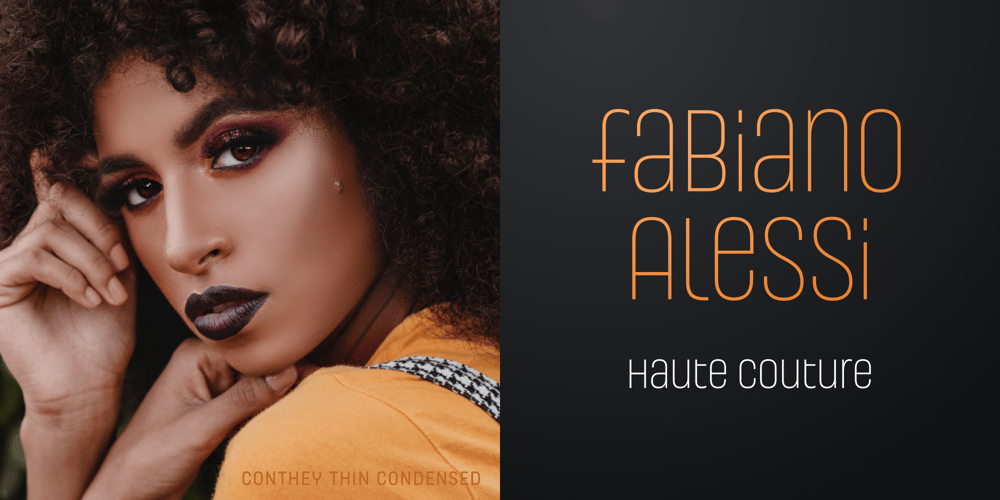
Conthey Font Family was designed by Roch Modrzejewski and published by ROHH. Conthey contains 128 styles and family package options. Conthey simply smiles at you—it has a type of personality that is easygoing and welcoming at all times. This straightforward unicase sans comes in a wealth of styles that make it effortlessly adapts to various design scenarios.Conthey does not fuss. Its flexible nature makes it eager to participate in all your ideas, being a hassle-free and willing partner, always ready to go.This type family is all about flexibility! Whether you need a weight that’s barely there (hello, hairline!) or something extra bold, it’s got you covered. Plus, widths go from narrow to normal, and if that’s not enough, you can go from a lively unicase to a full-on playful neo-deco style with just a click. It’s like font mood swings—in a good way!Key Features• 126 styles (7 weights + italics)• 3 widths• 3 stylistic moods• 2 variable fonts• cool unicase design• over 580 glyphs• Extended Latin language support